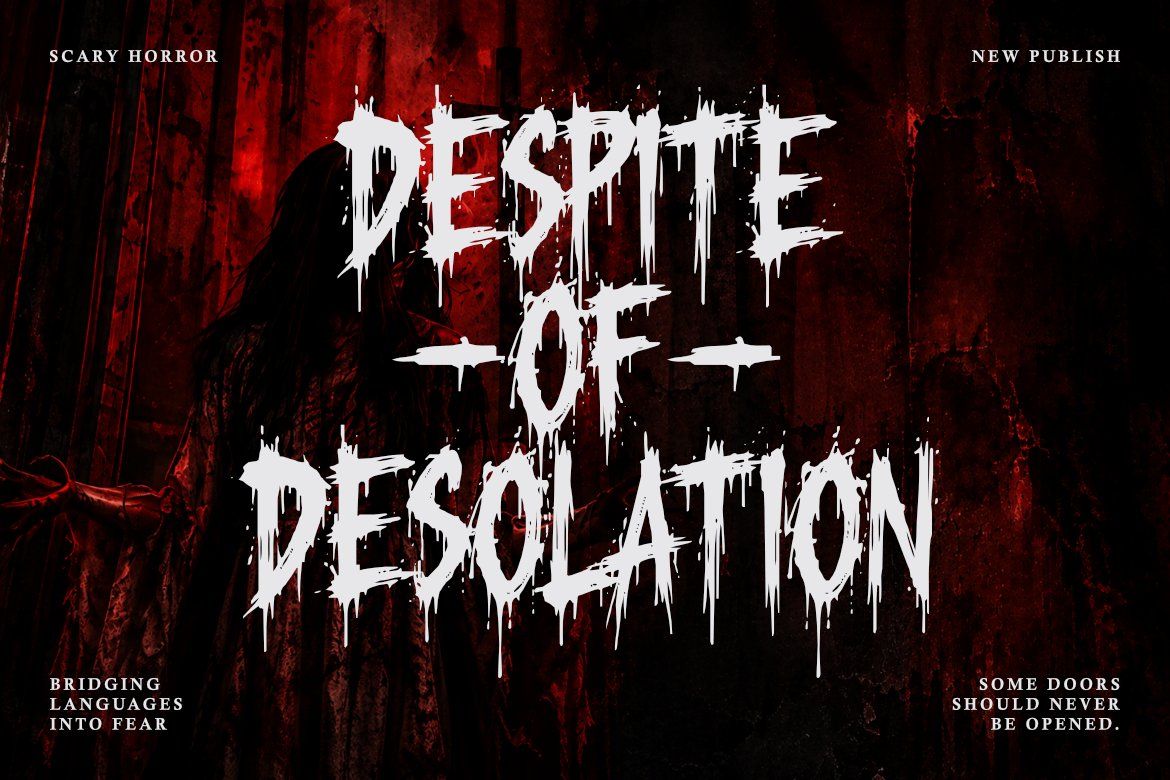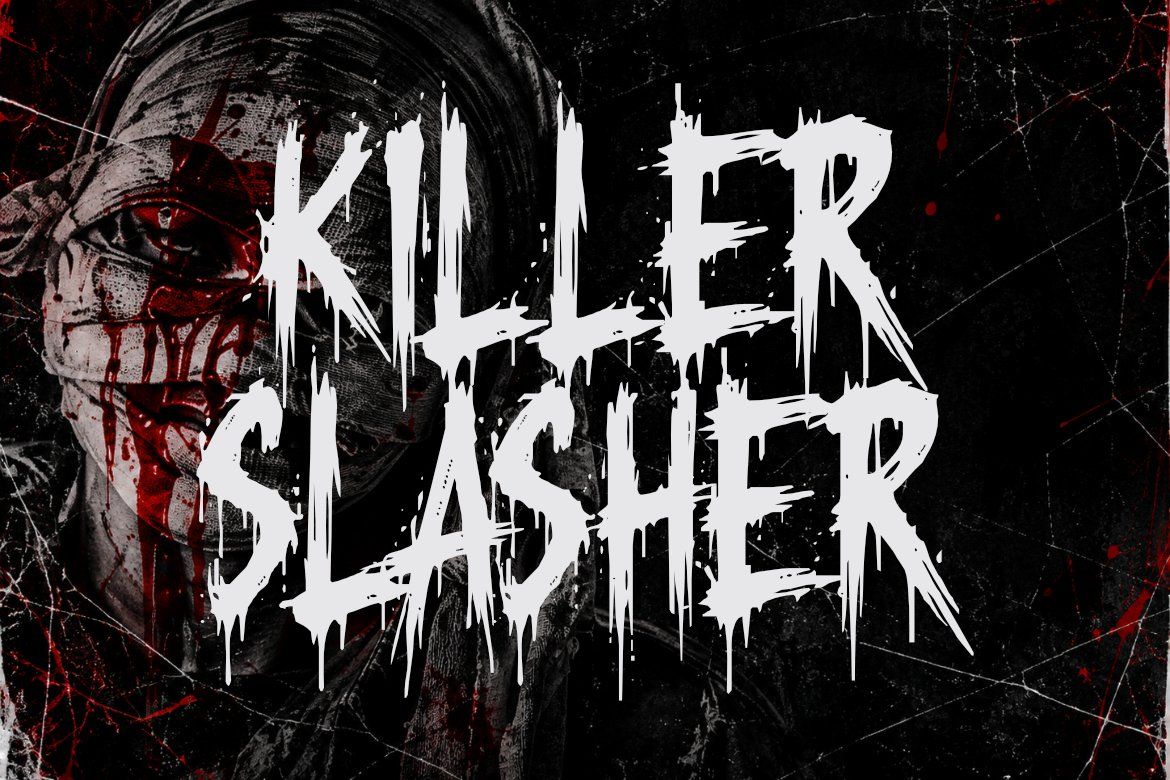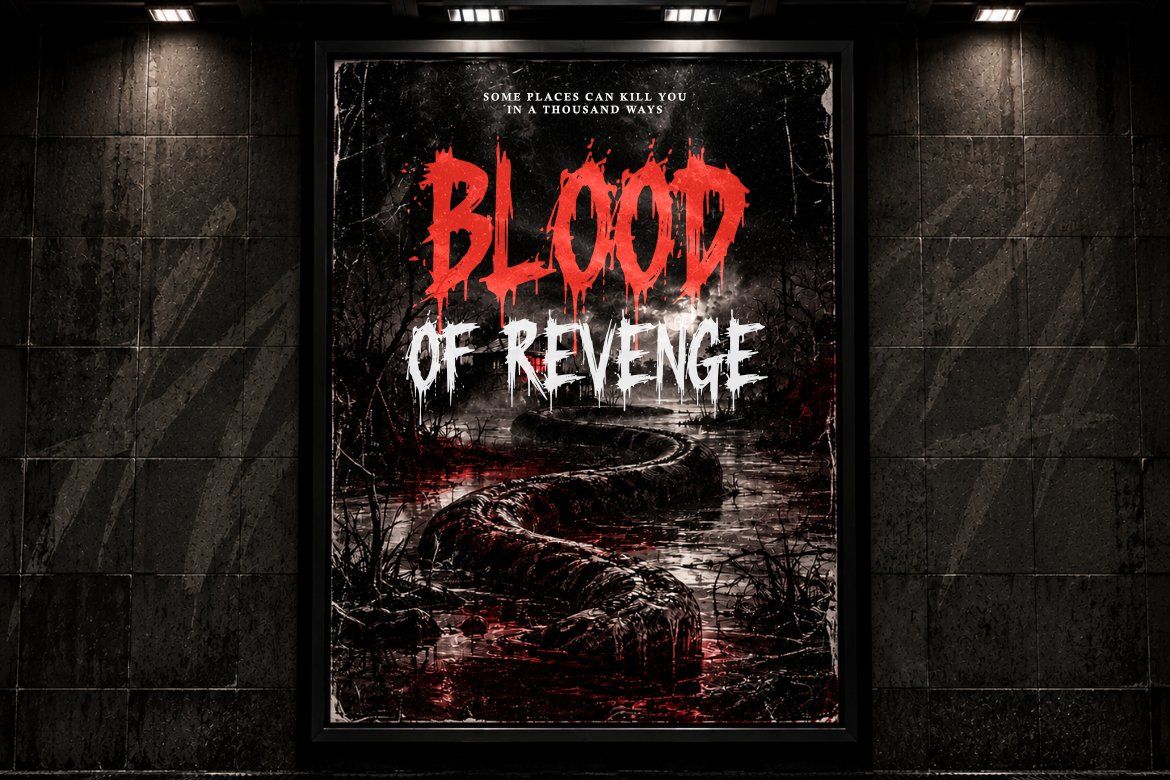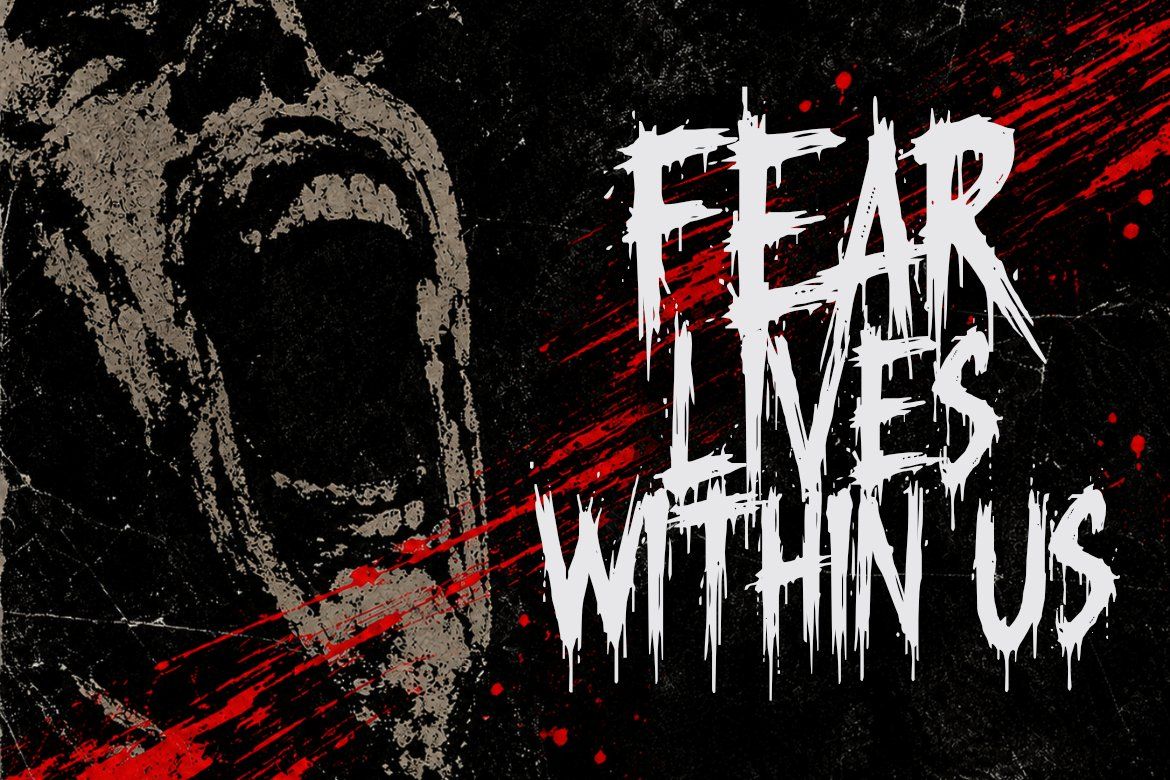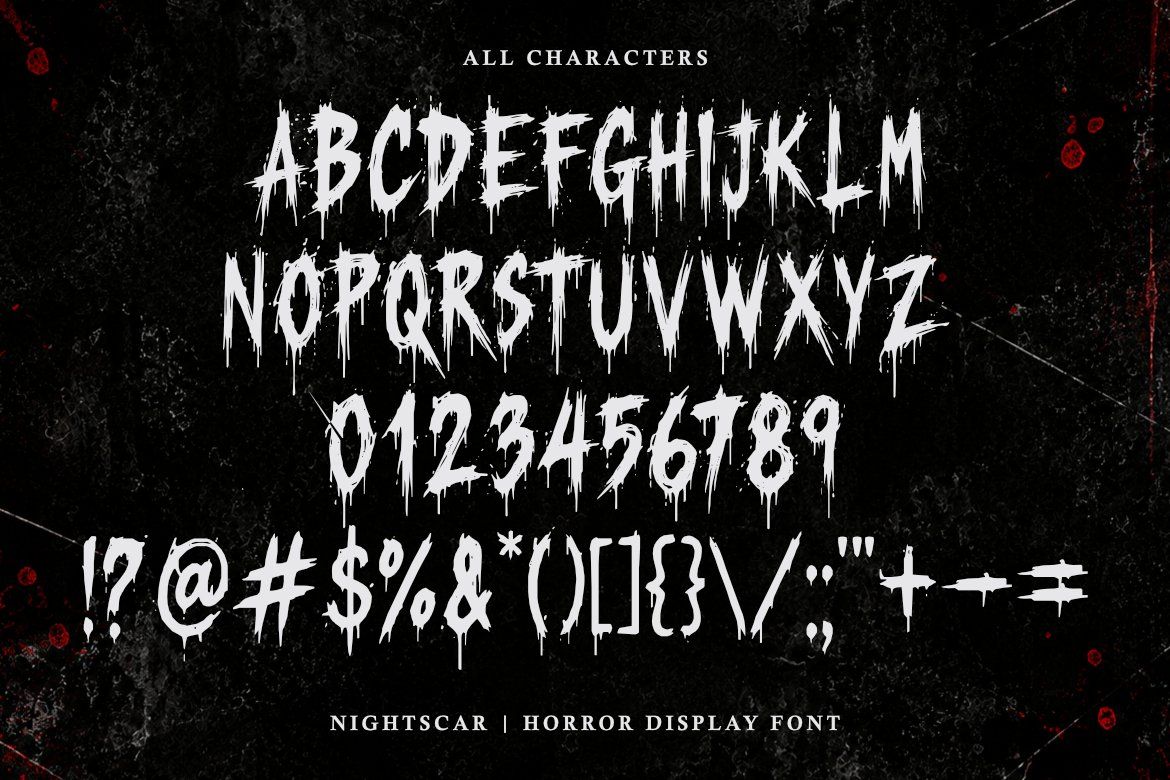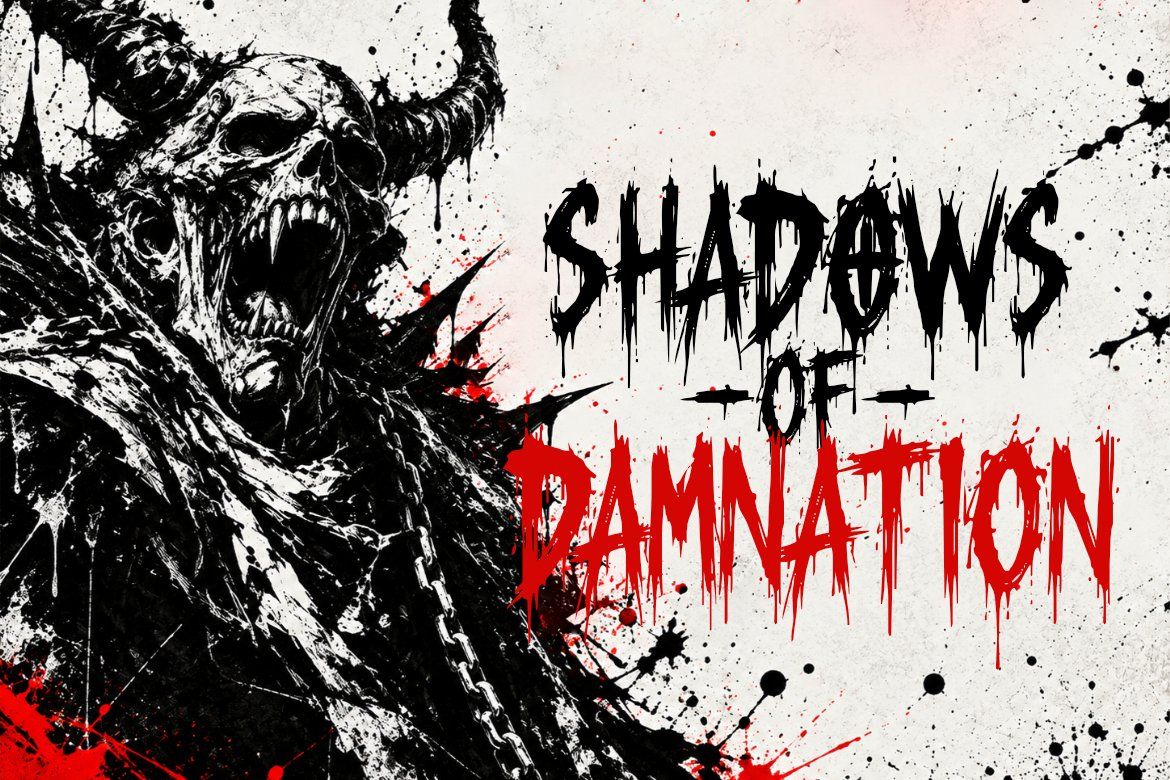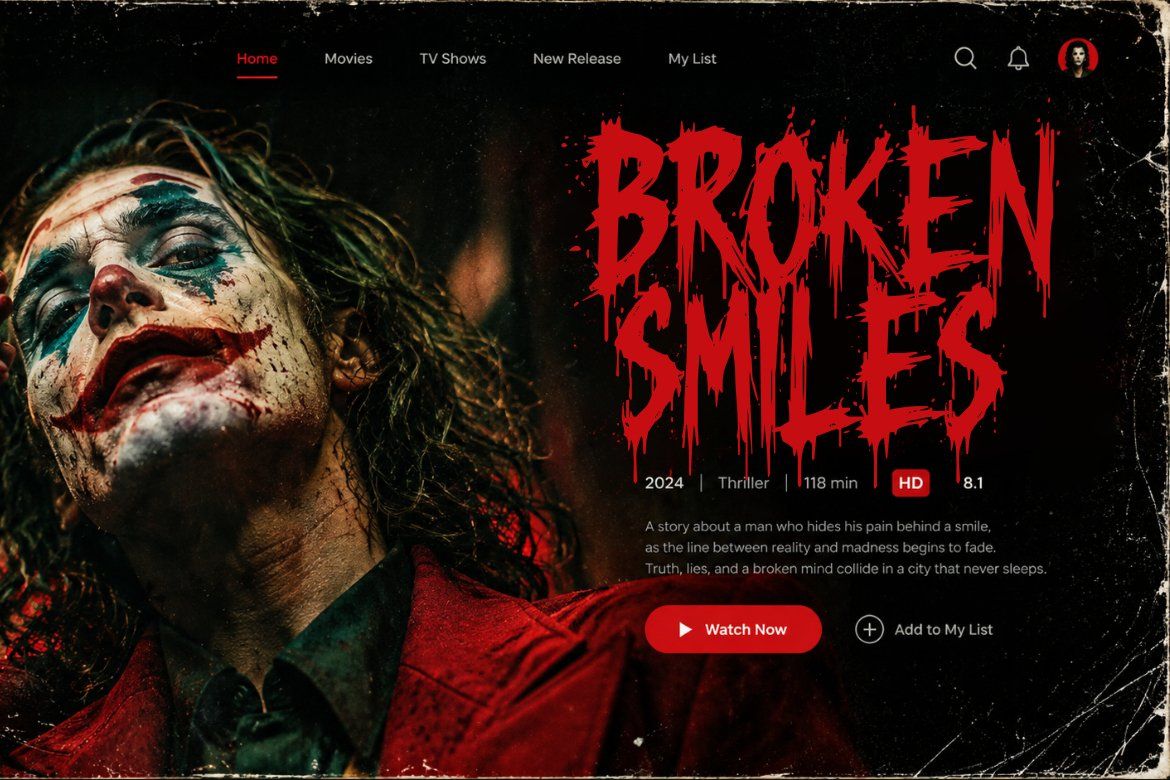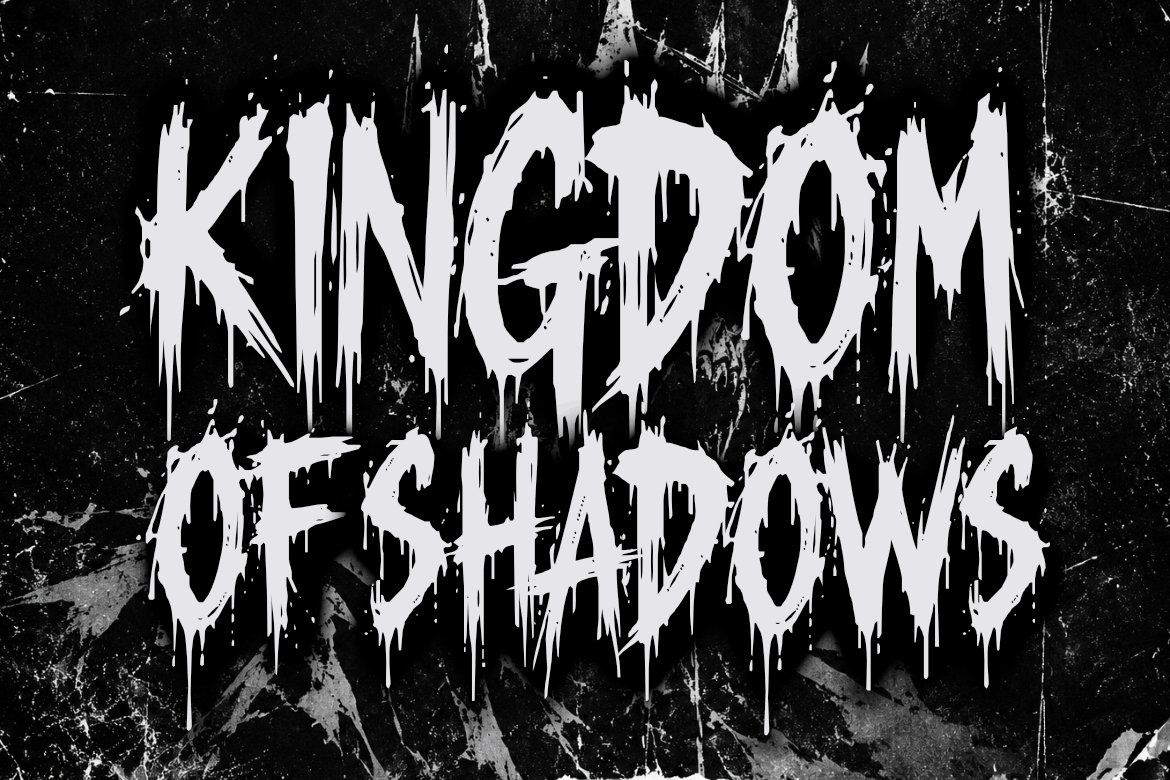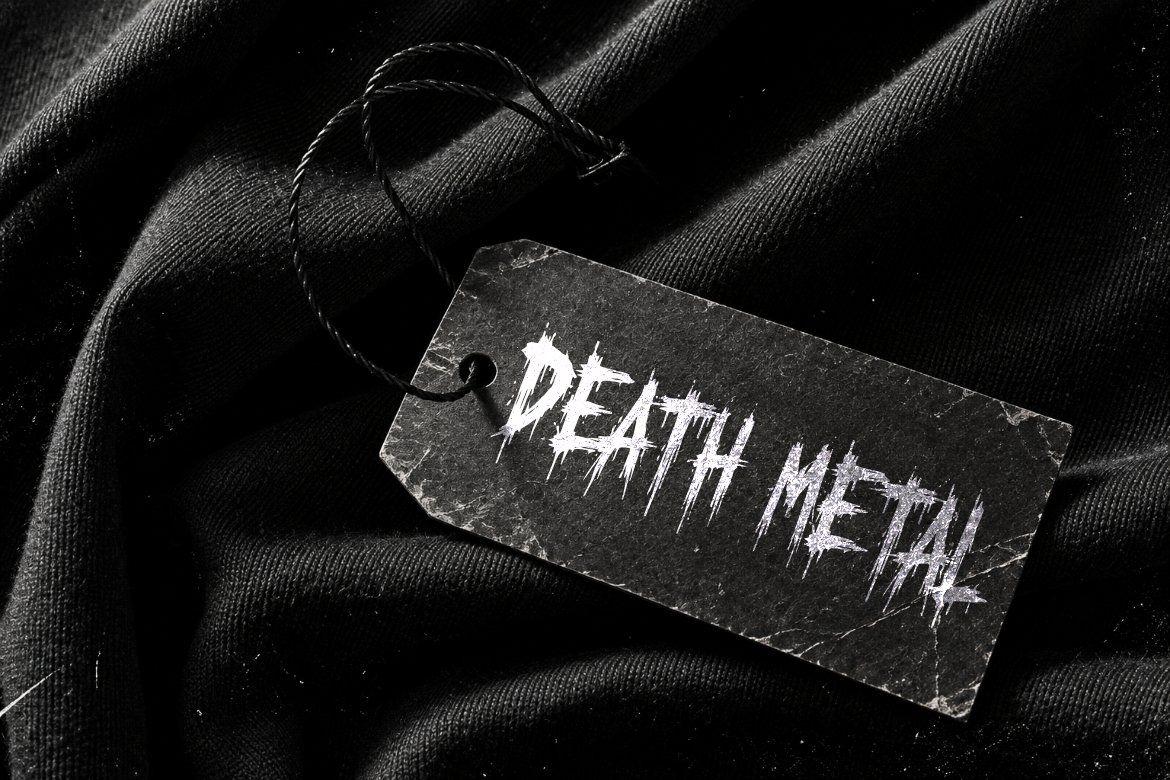
Slasher font NIGHTSCAR is a dripping horror display typeface featuring sharp strokes, scratched details, rough textures, and an aggressive hand-painted appearance. Designed for horror posters, Halloween graphics, movie titles, merchandise, and dark display typography, NIGHTSCAR gives every word a raw and unsettling personality.
Inspired by slasher films, dark thrillers, haunted nights, and sinister Halloween artwork, NIGHTSCAR combines irregular letterforms with dramatic distressed details and dripping edges. Its strong display character makes it especially effective for large headlines, titles, posters, covers, and merchandise graphics.
Perfect For:
• Horror movie posters
• Halloween graphics
• Slasher movie titles
• Thriller titles
• Scary book covers
• Game titles
• Haunted house events
• T-shirt designs
• Metal artwork
• Album covers
• Merchandise
• Packaging
• Logos
• Stickers
• Dark editorial designs
• Uppercase and lowercase
• Numbers and punctuation
• Symbols
• Rough hand-painted style
• Sharp distressed details
• Dripping horror appearance
• Strong display character
NIGHTSCAR works especially well when typography needs to feel aggressive, scratched, dripping, and intentionally unsettling. Use it for Halloween campaigns, slasher-inspired artwork, horror titles, brutal merchandise graphics, haunted event promotions, and dark visual identities.
Leave your mark in the dark.